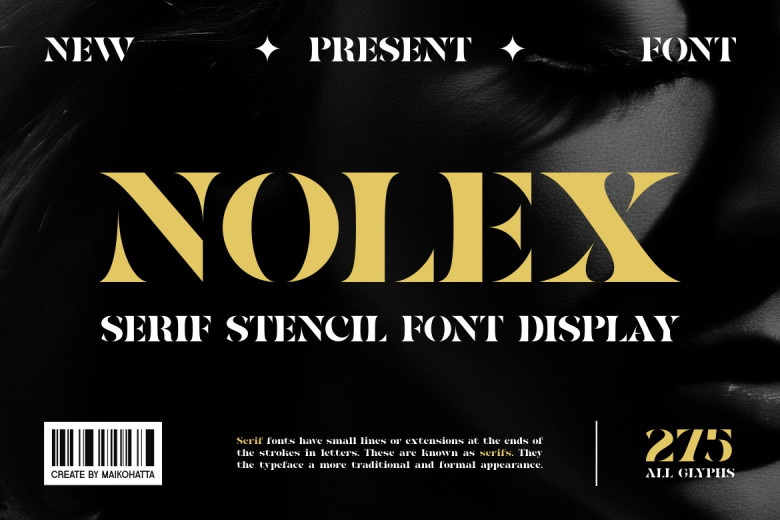
Nolex Font
Nolex is a Serif Stencil Display sort of font. The mentioned font is a type with its exceptional typographic features, according to which, it has some specific attributes, such as the holes or ‘cut-outs’ on each of the figures in the type and letter set. The primary characteristic of stencil font is the existence of the holes or voids on the contour of the shape of letters.
This font is used in several occasions and especially in the designs that require a unique touch with a strong and somewhat aggressive, but characteristically charged look. It can be used for designing messages that could be easily remembered and which gives a strong message impression in several design applications.
Nolex Serif Font